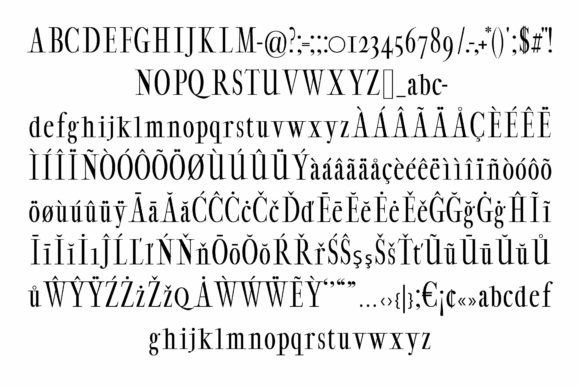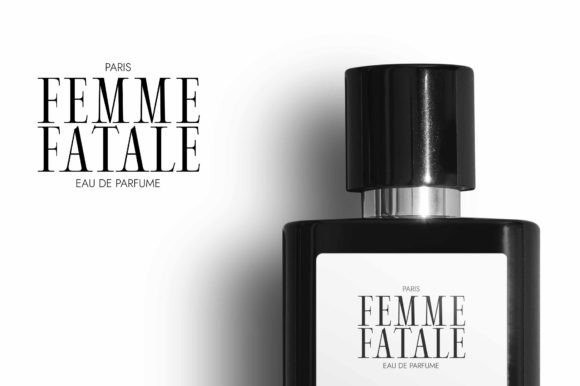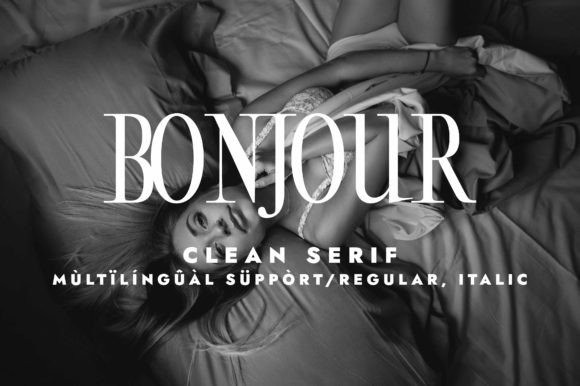
Bonjour Font
Bonjour Font is a delicate elegant serif typeface that derivates from french culture. It is really a useful font and it can be useful for packaging design, poster design, headlines on websites, social posts, perfume, and cosmetics designs